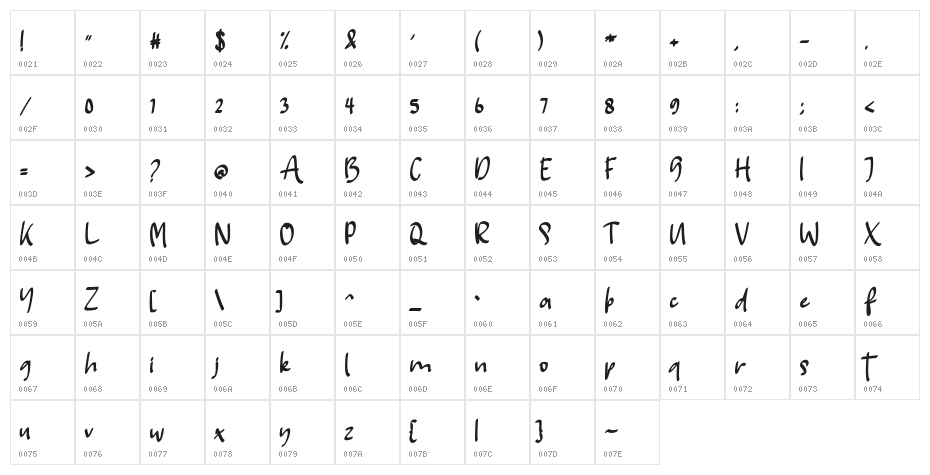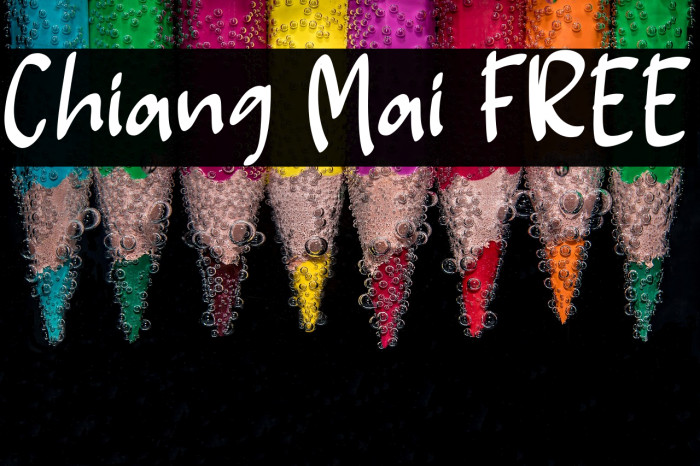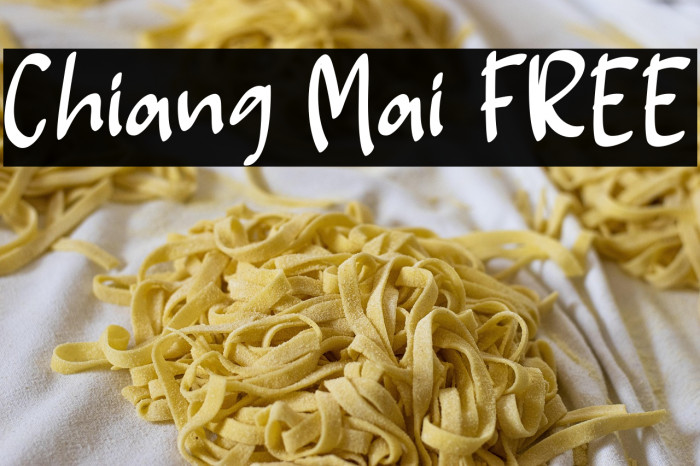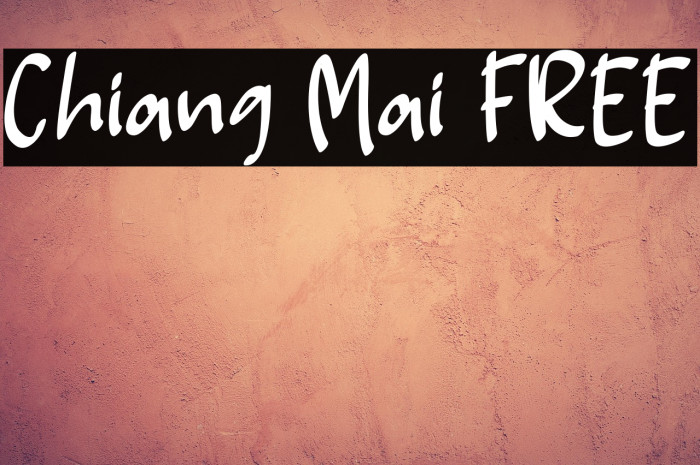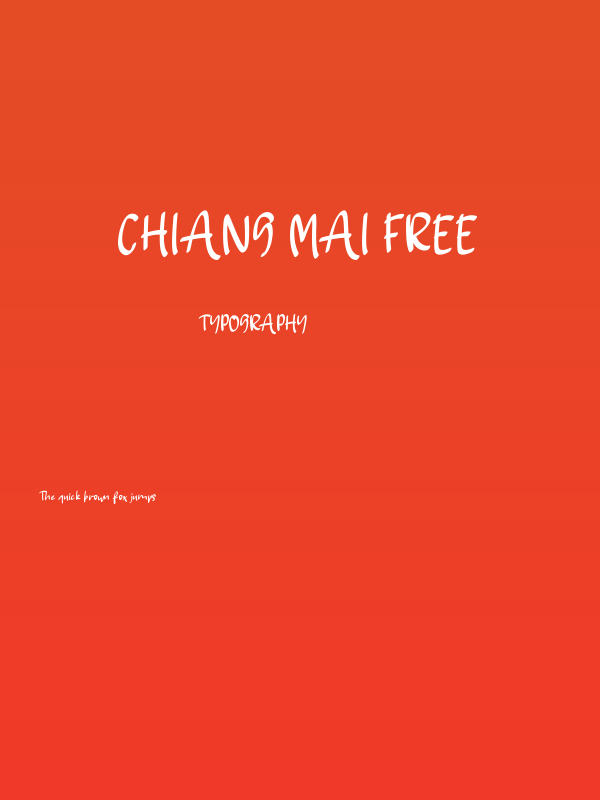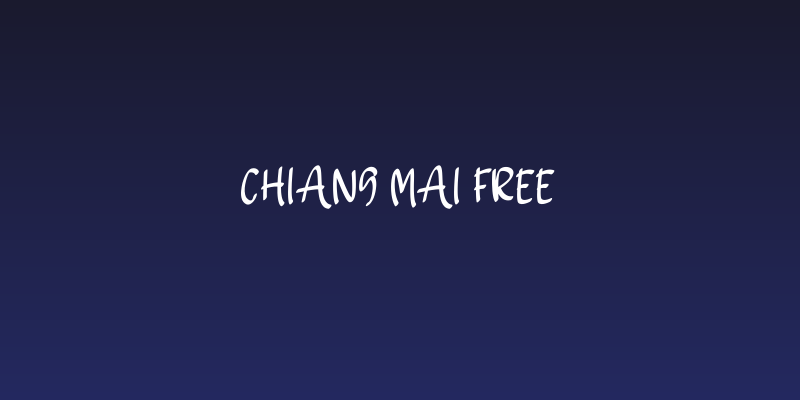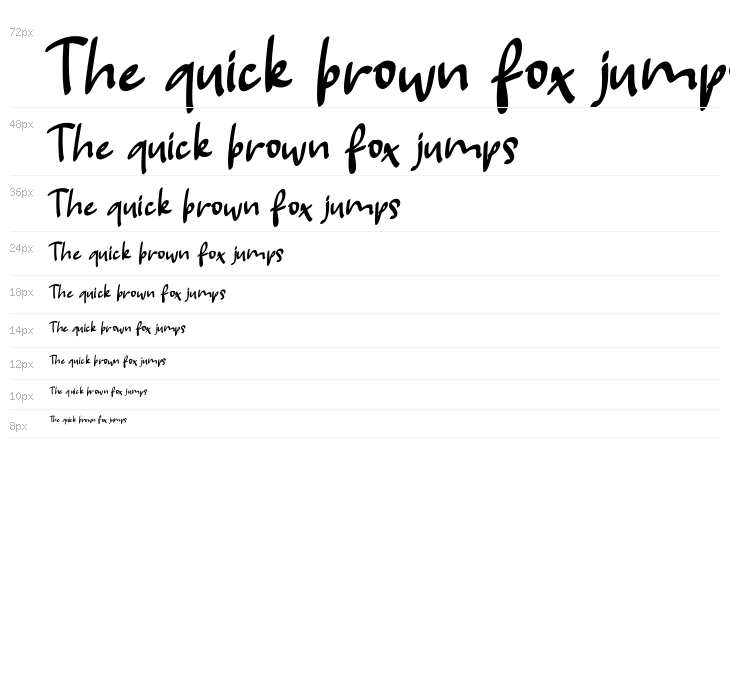
Chiang Mai FREE Font
Chiang Mai FREE Description
A casual, handwritten font with a playful and informal style, featuring smooth curves and a natural flow.
| Use Case | Logos, Invitations, Personal projects |
| Proposed Projects | Greeting cards, invitations, personal branding. |